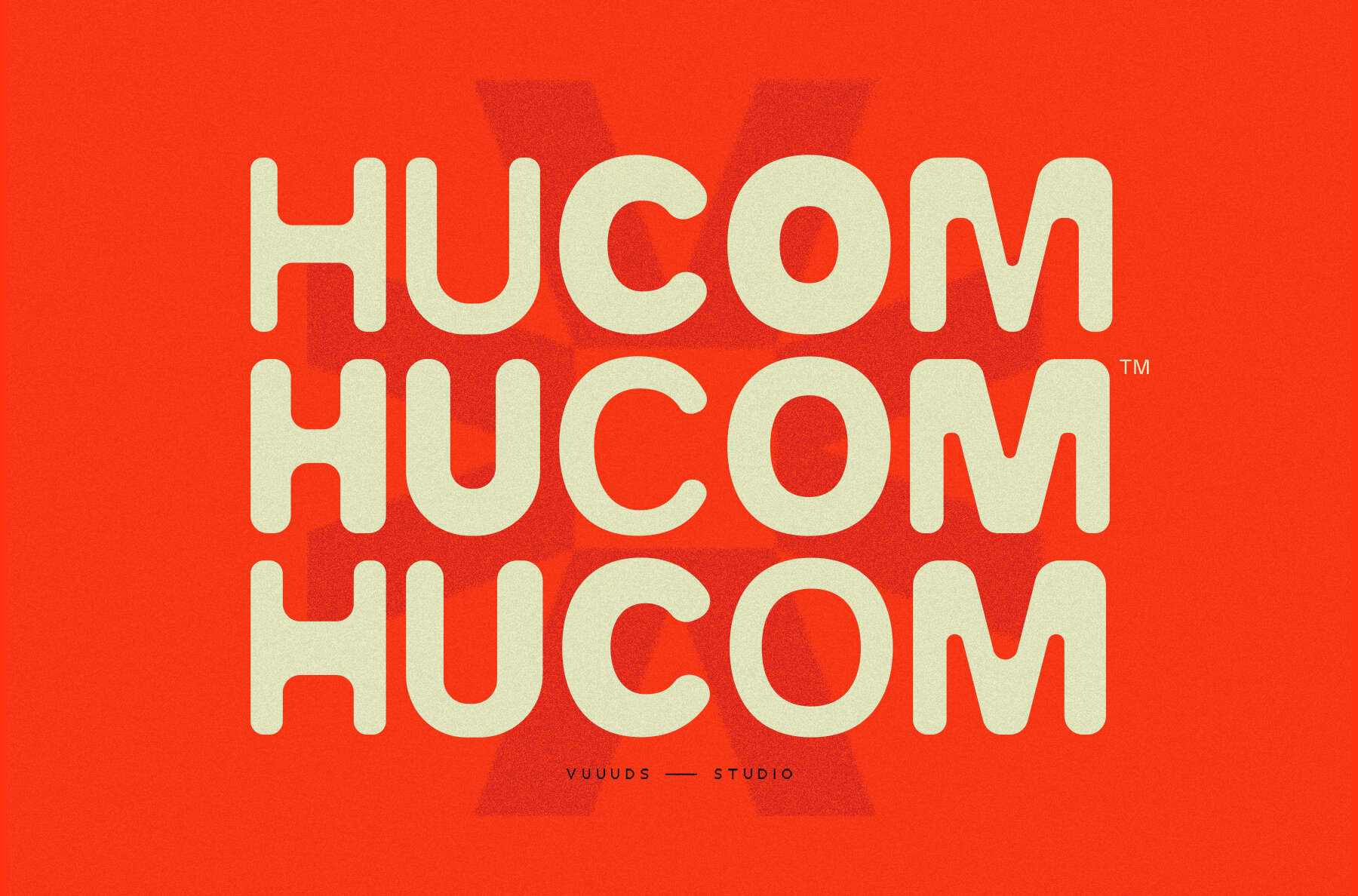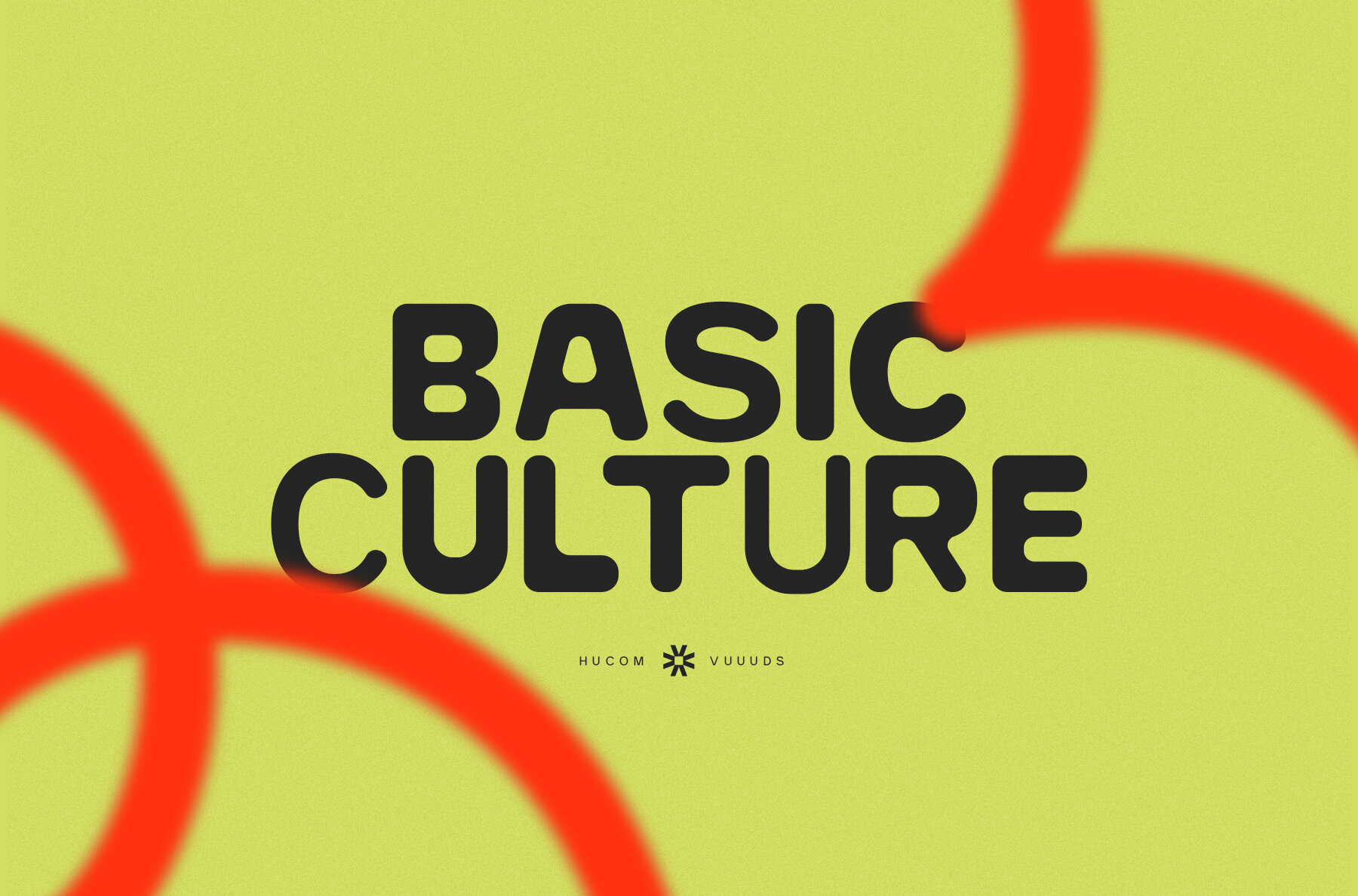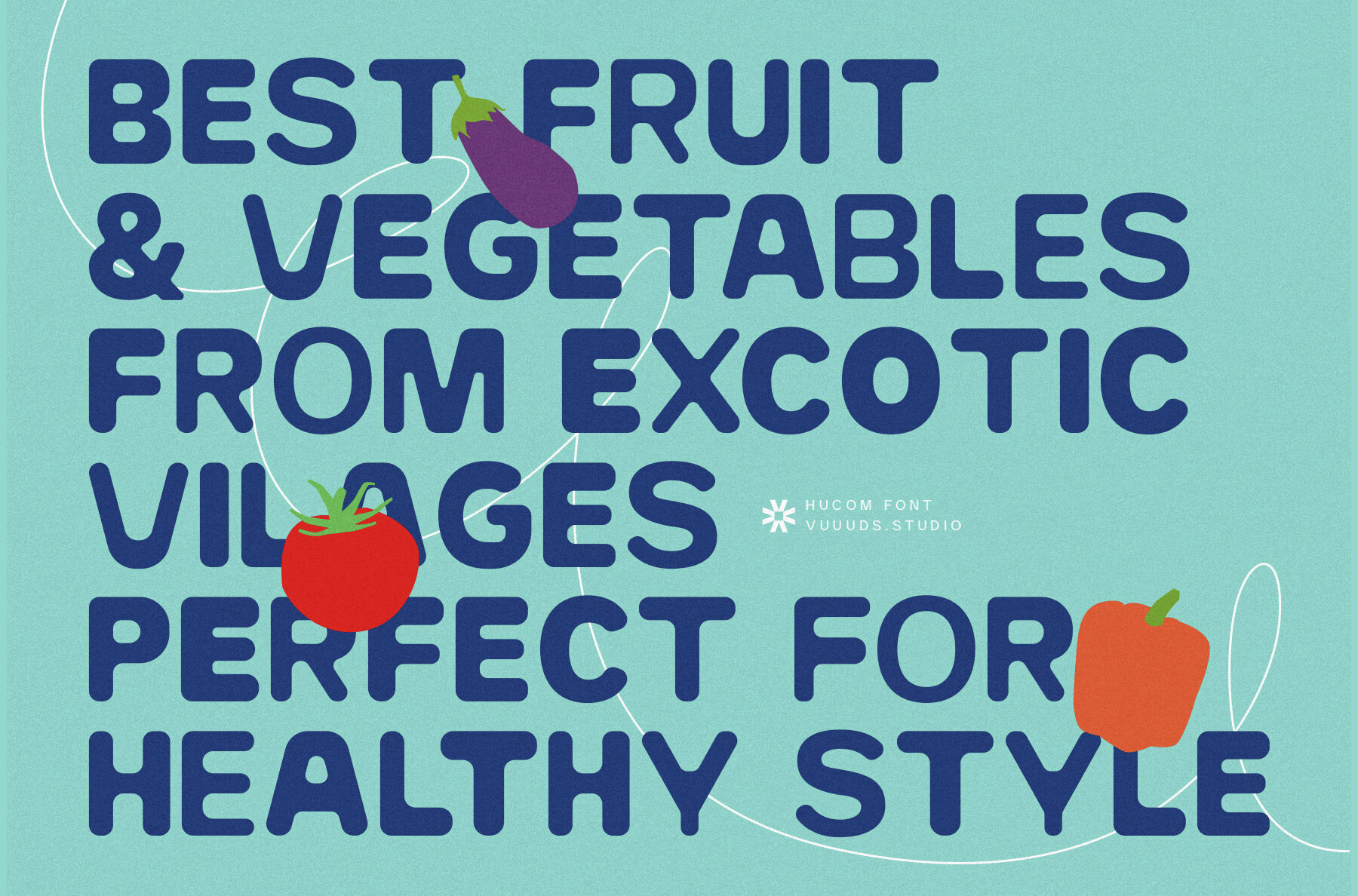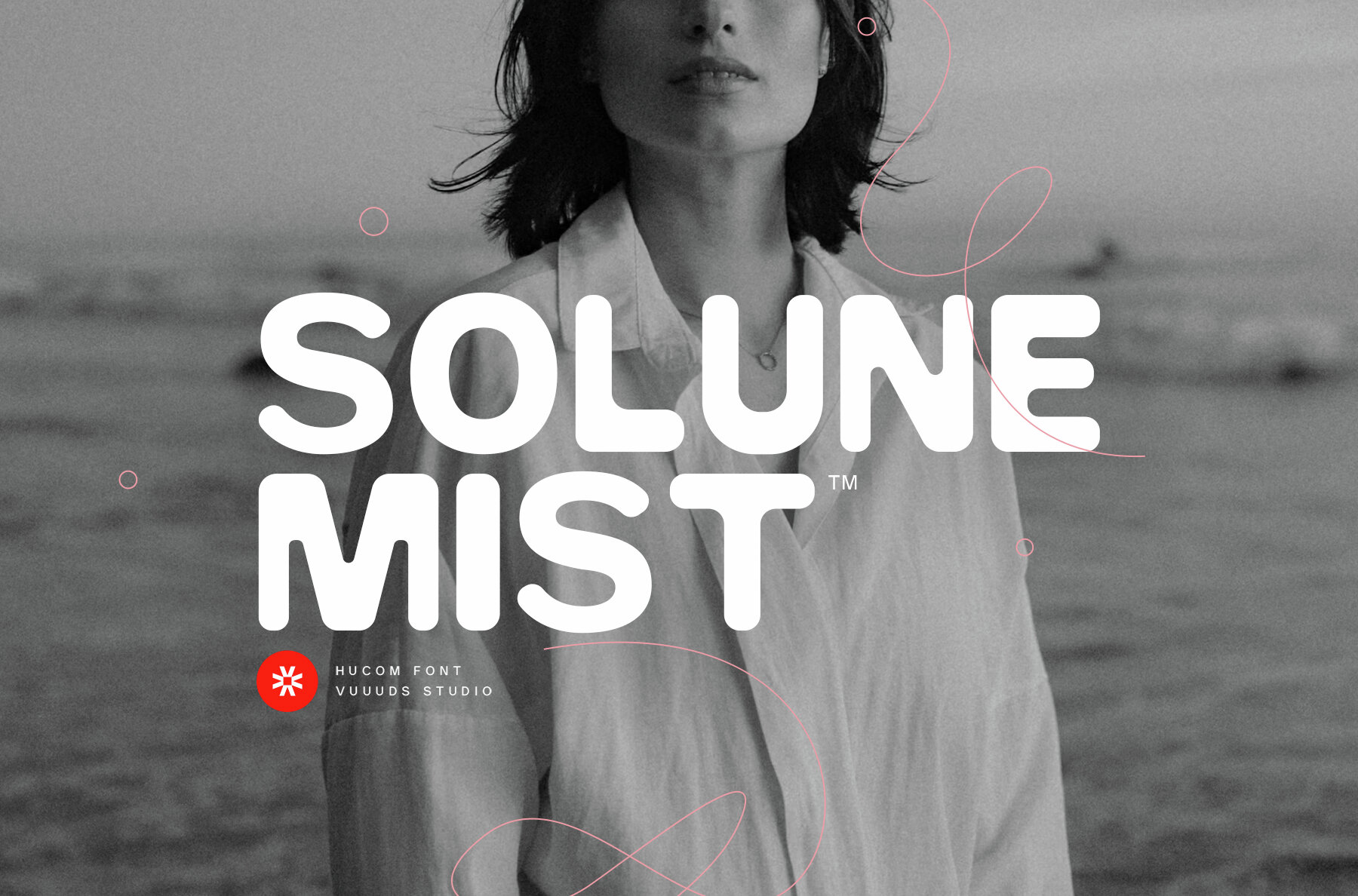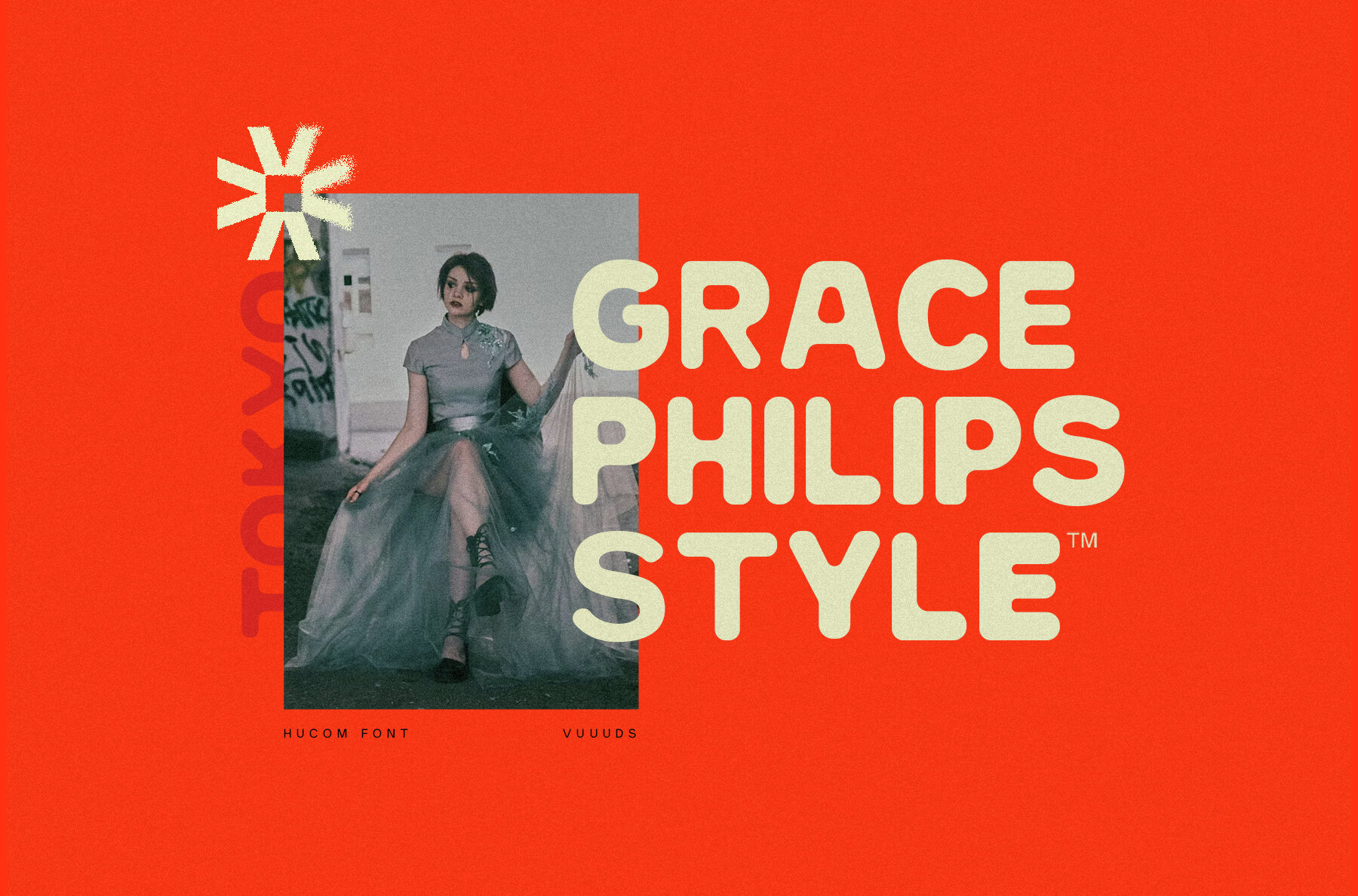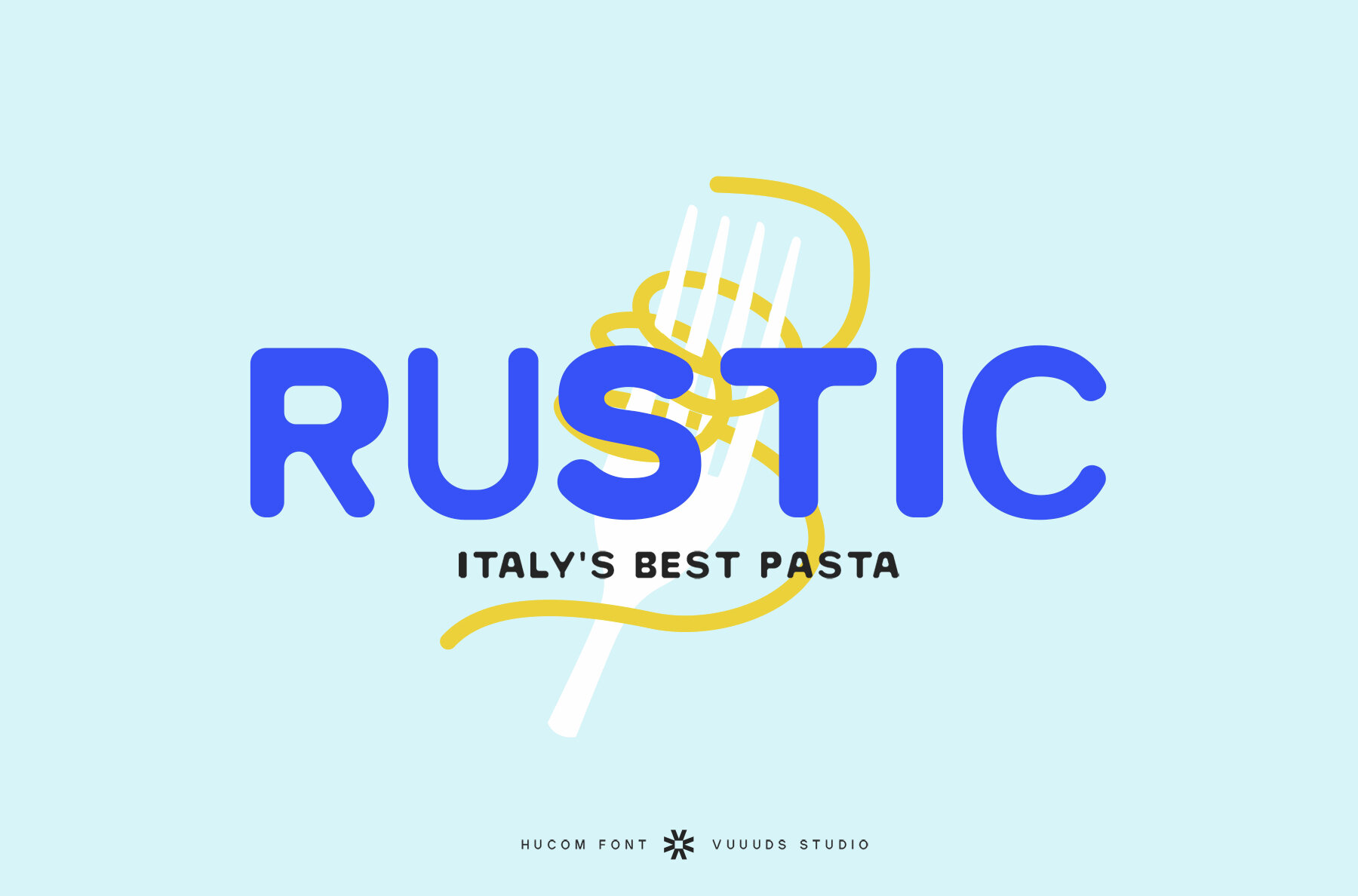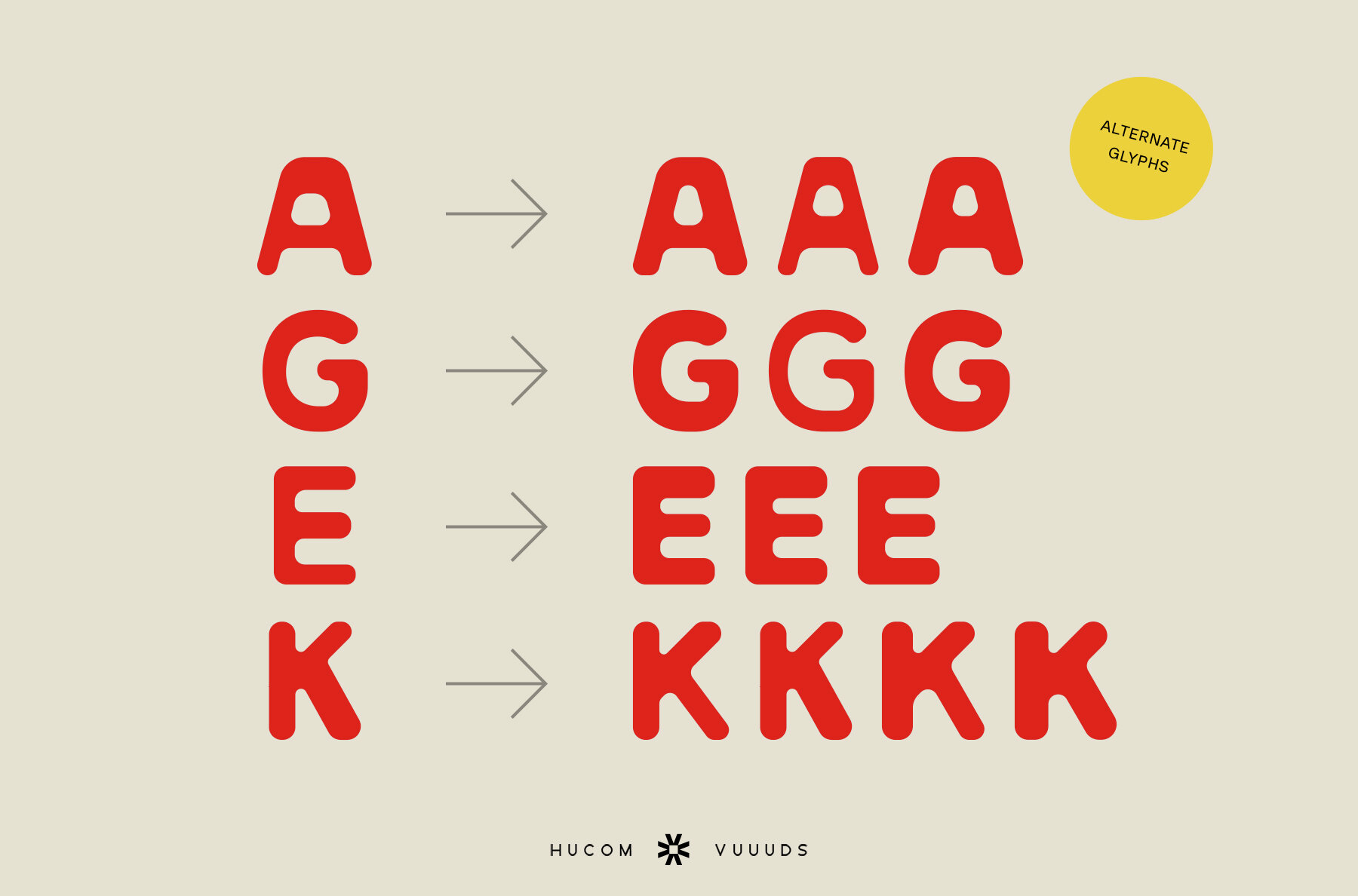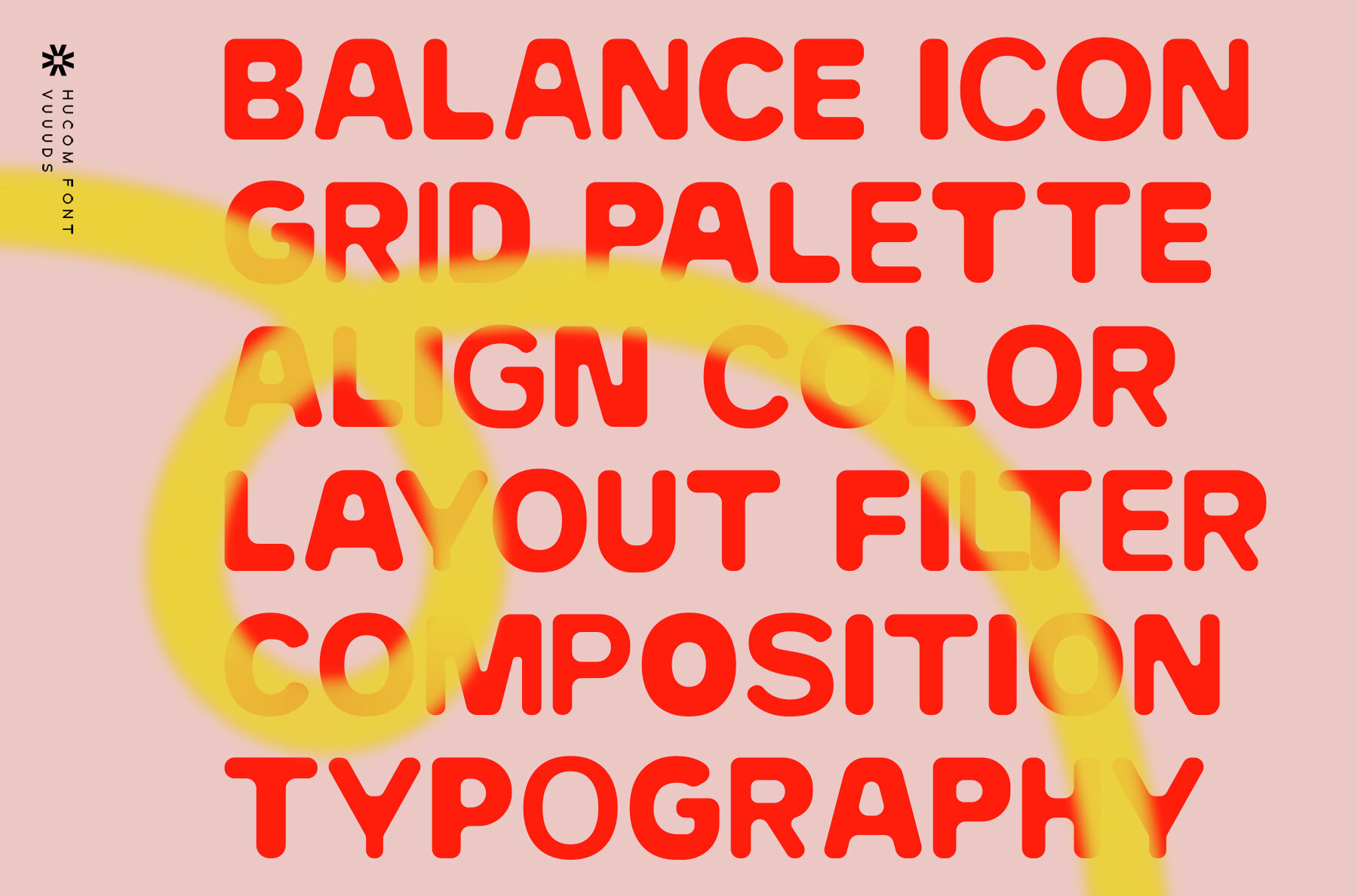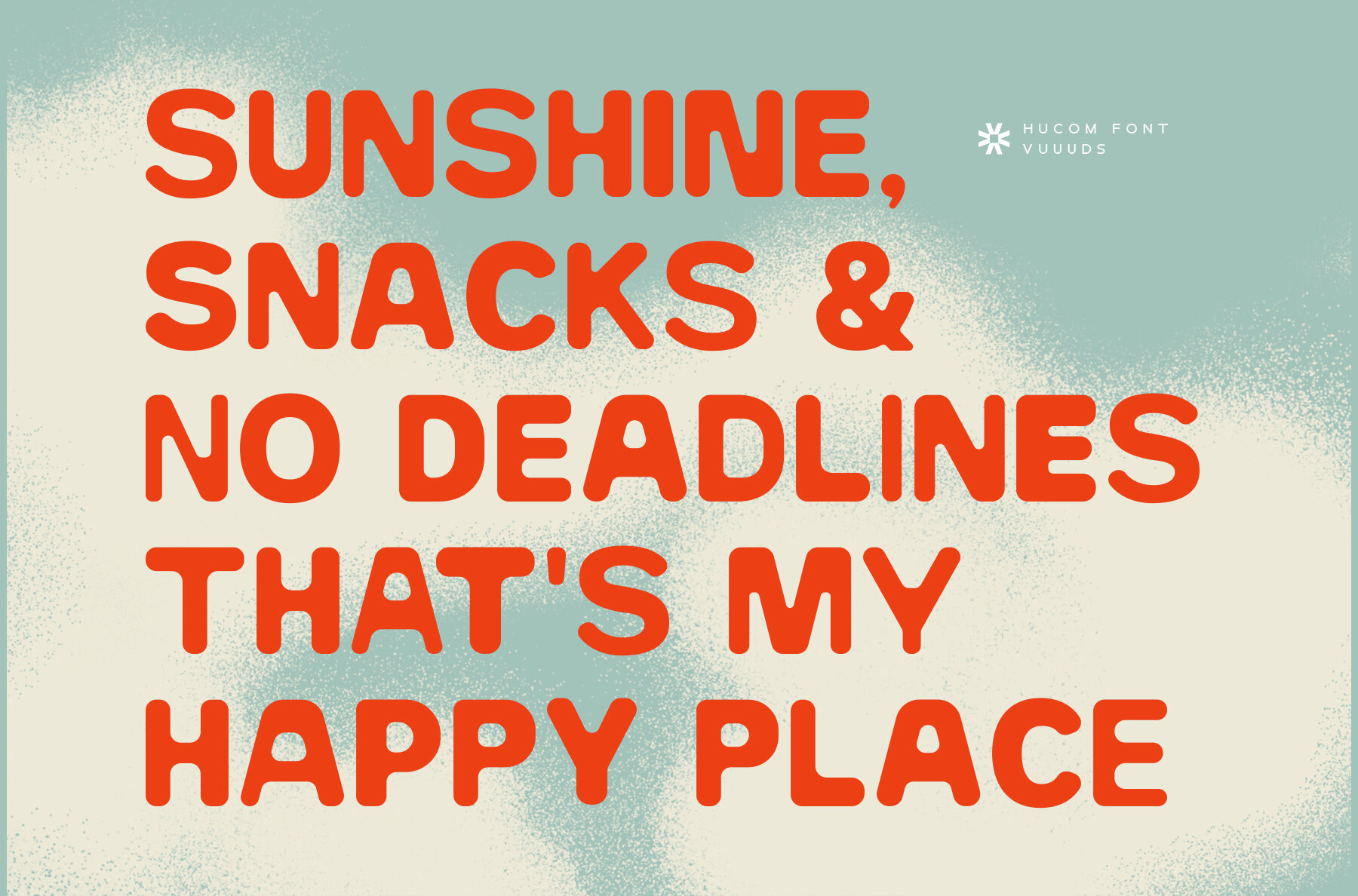
Hucom Font
Hucom
The Hucom font introduces a contemporary sans serif style, distinguished by gently rounded contours. Each letter is carefully crafted to ensure uniqueness and distinction. This font comes with beautiful alternate glyphs, accessible via Font Book for Mac users or Windows Character Map for Windows users. Instructions for accessing these glyphs are provided within the accompanying zip file.Hucom: Modern Rounded Sans Serif Font